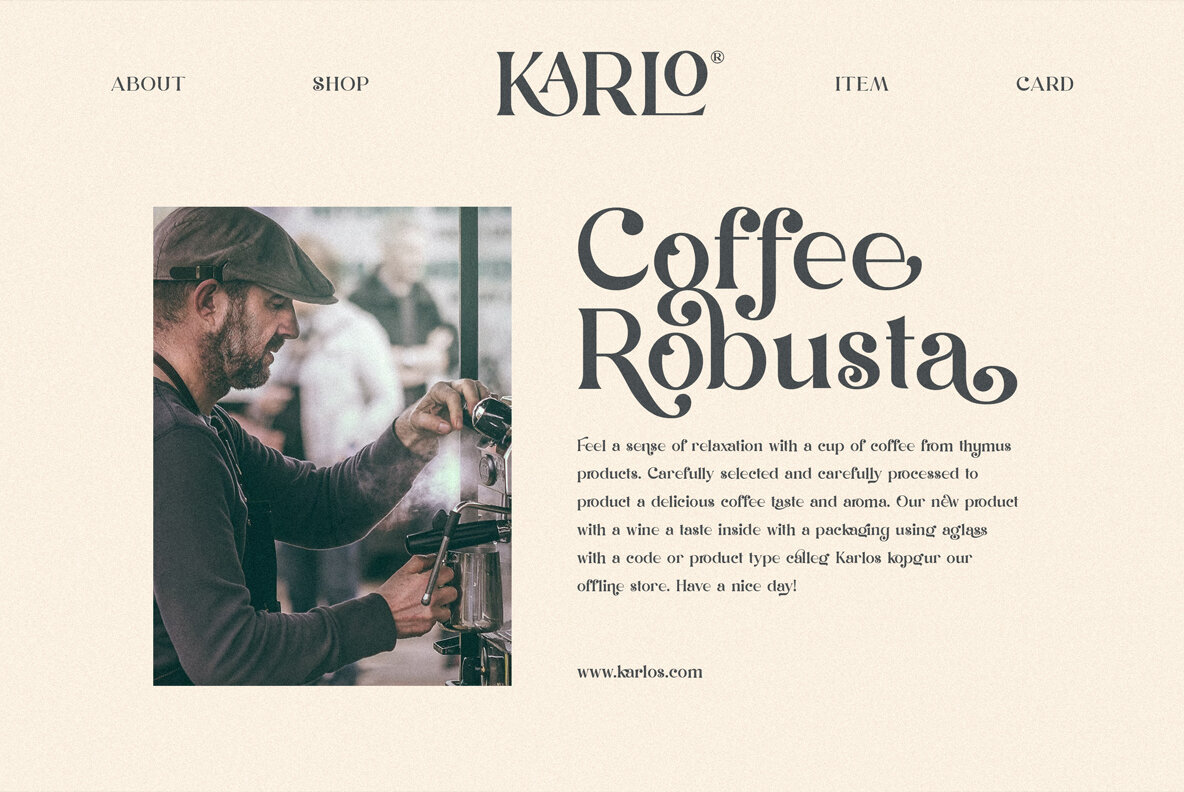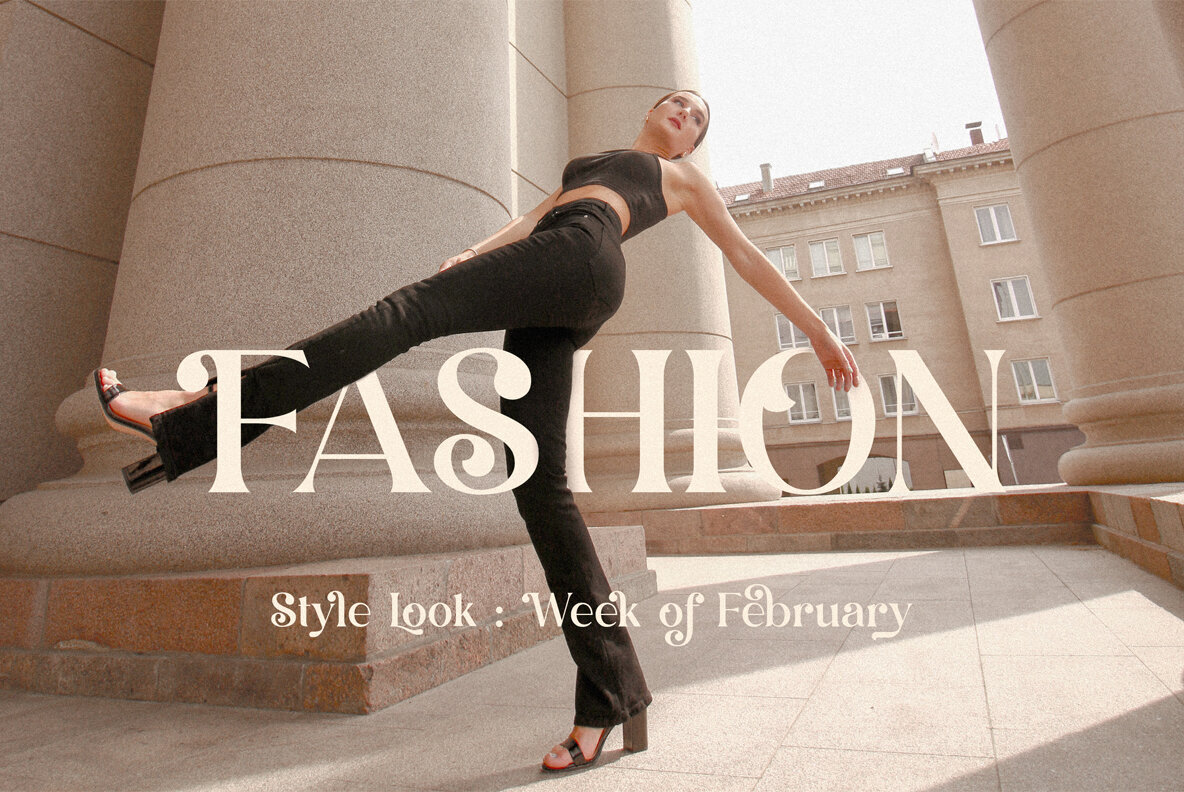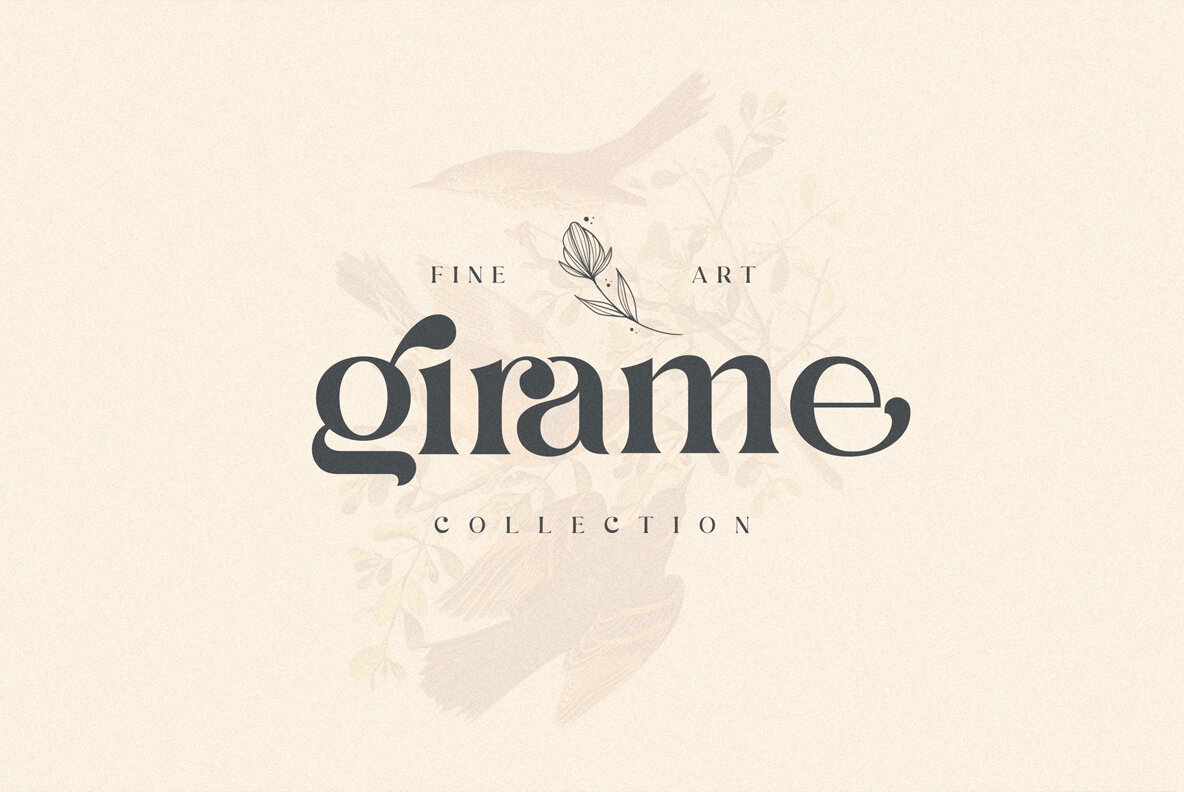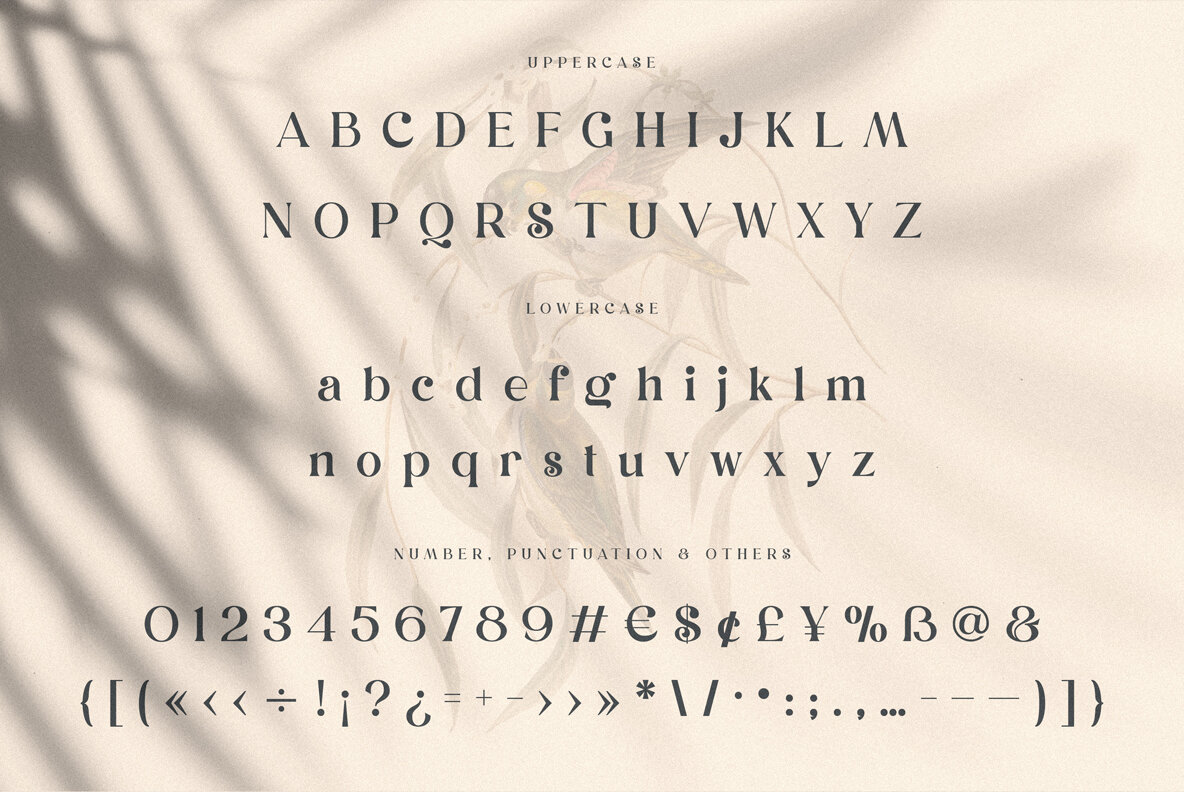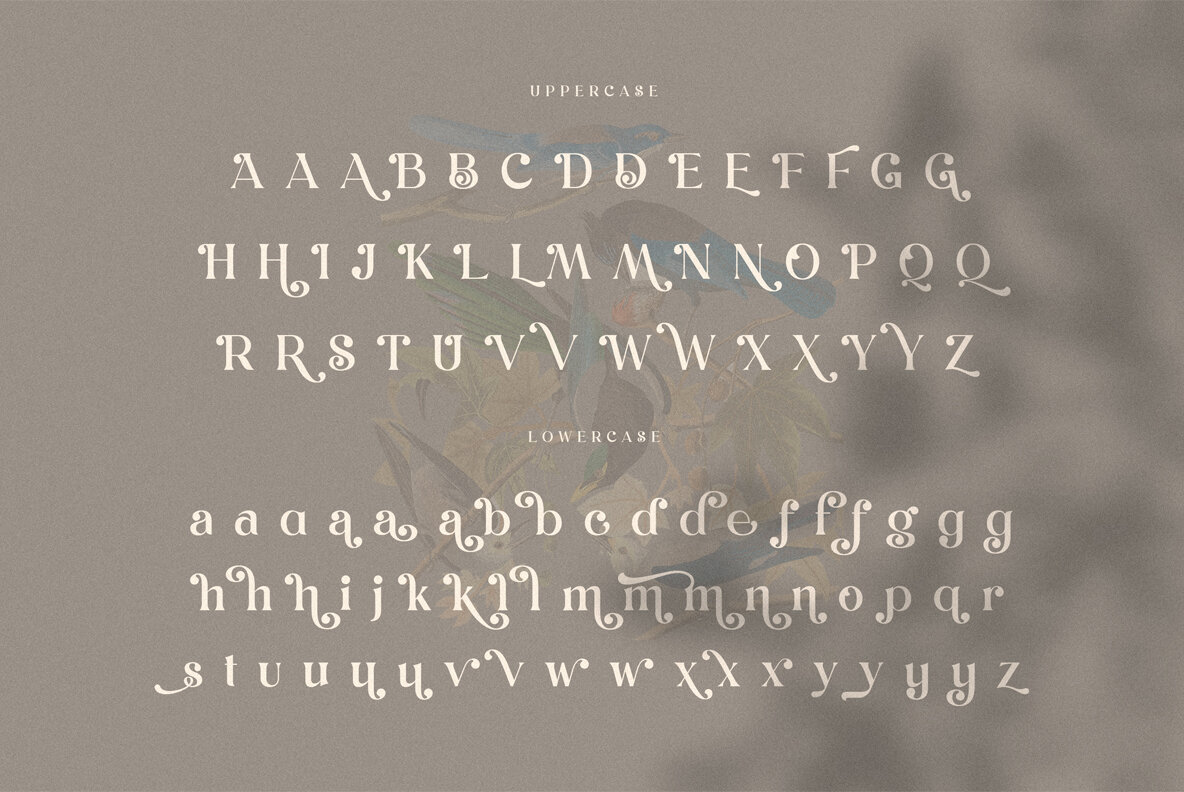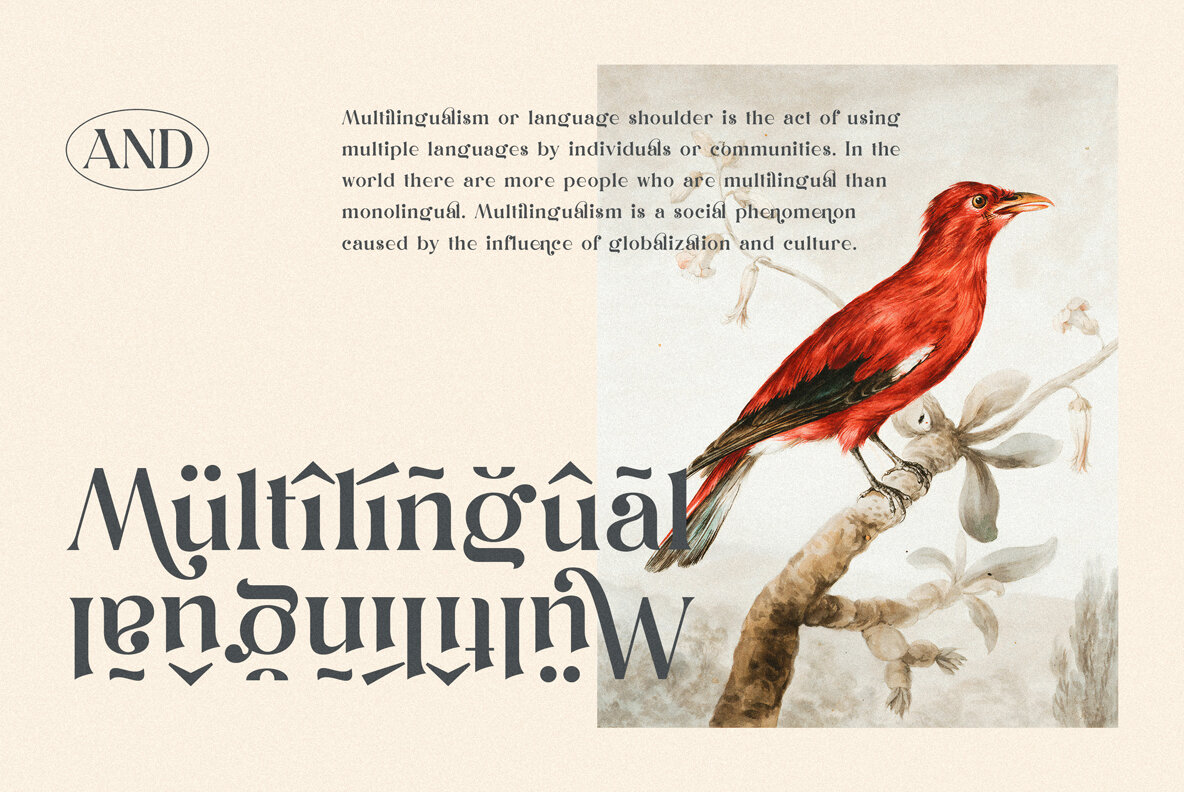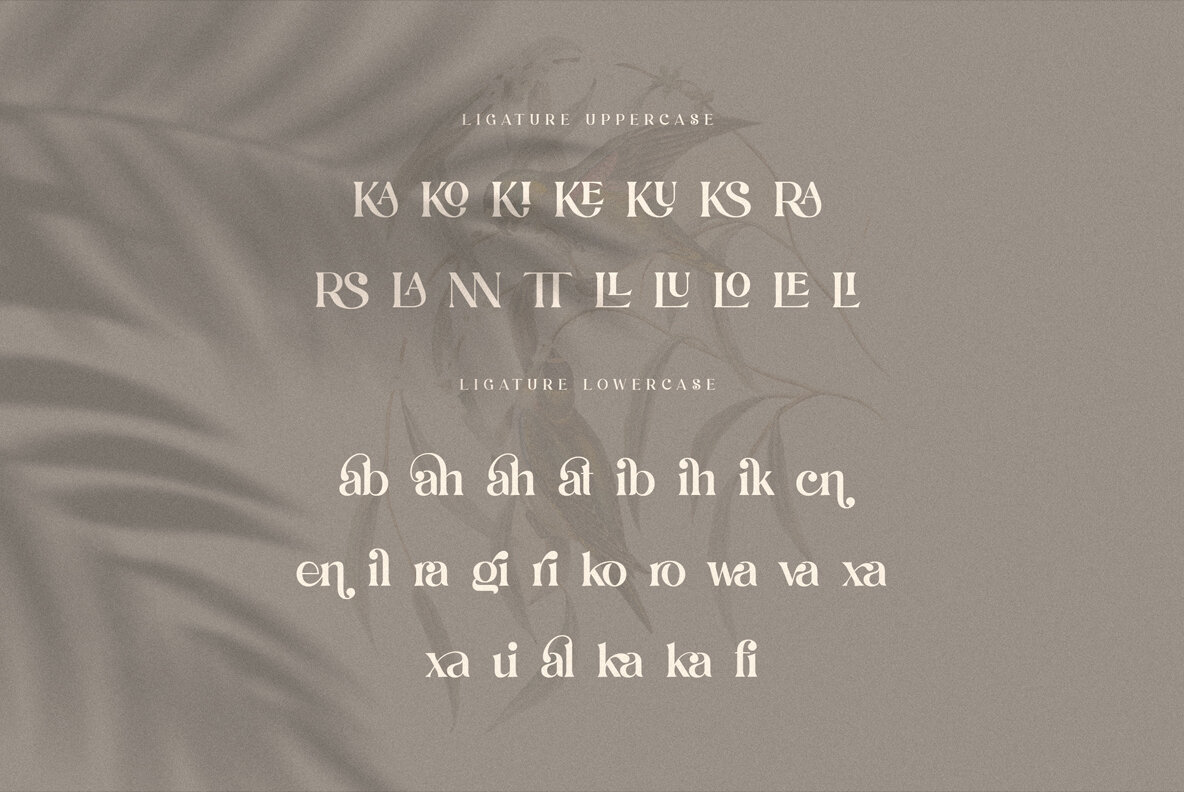
Dunsmuir Font
Trendy, bold & modern style serif font for your fancy projects. Elegant and classic style on Dunsmuir font will be great for any branding project. Lot of alternates and ligatures will help you to create unique and original logo design or website header! Enjoy :)
- 2 styles: Regular & Italic
- Multilingual support
- Lot of alternate characters
- Lot of ligatures
- Great for modern branding projects!